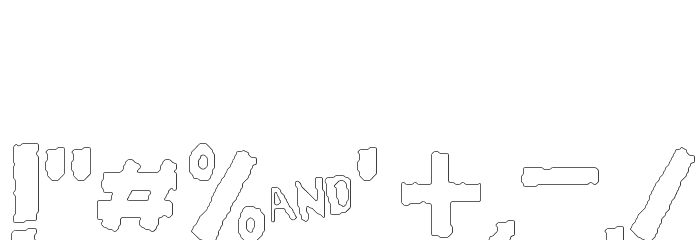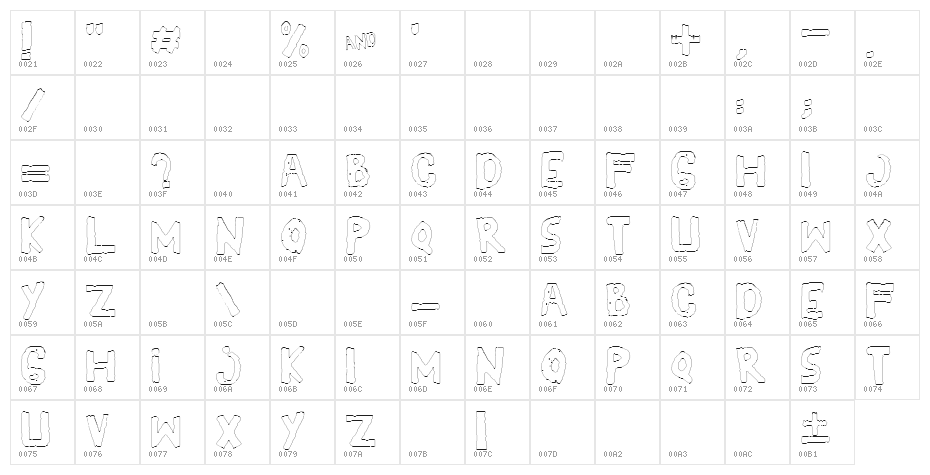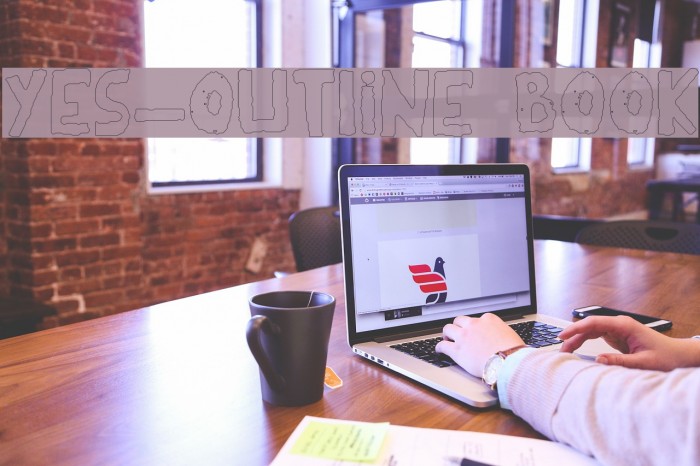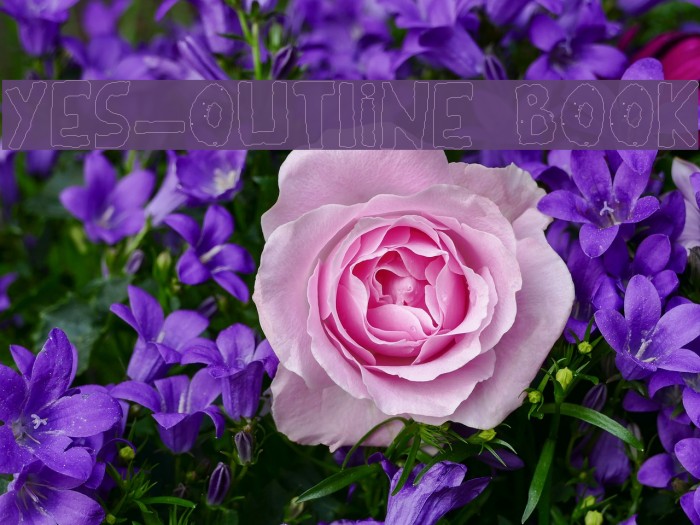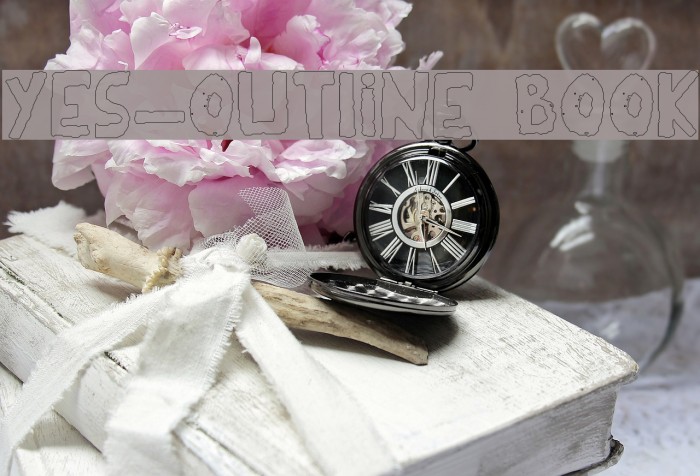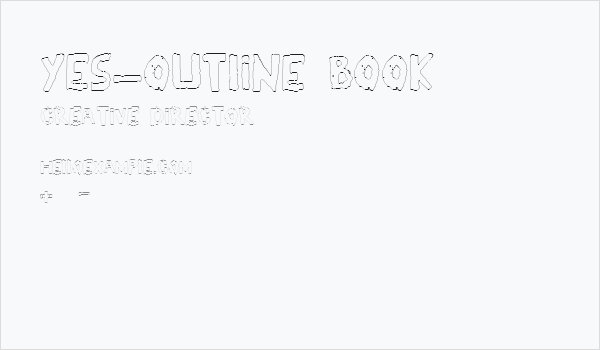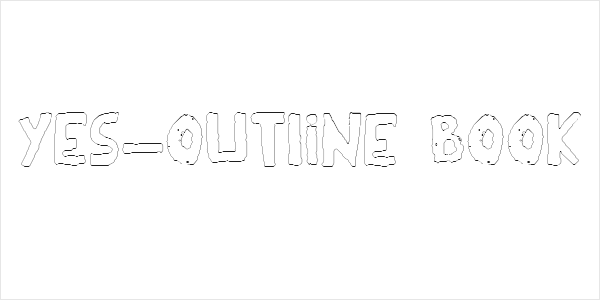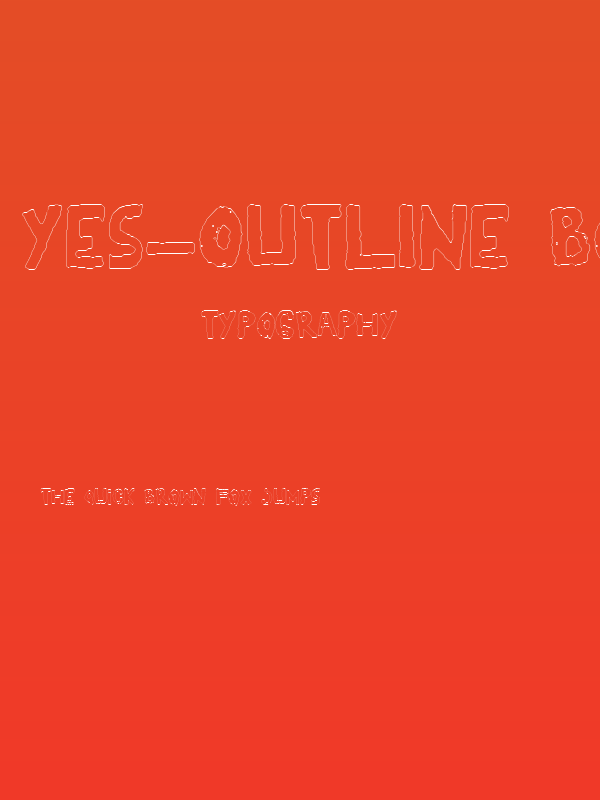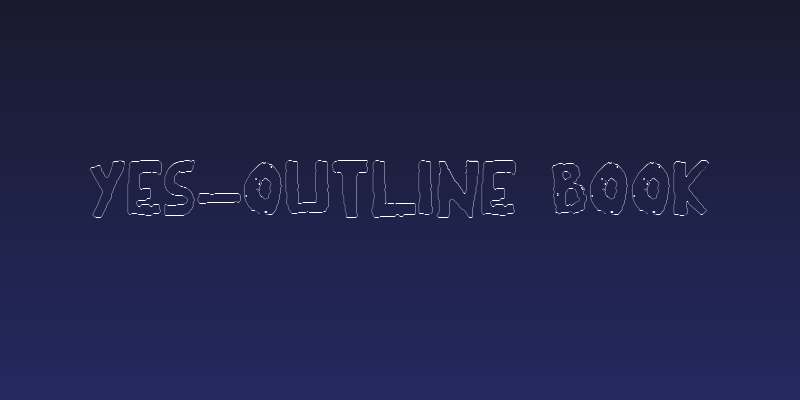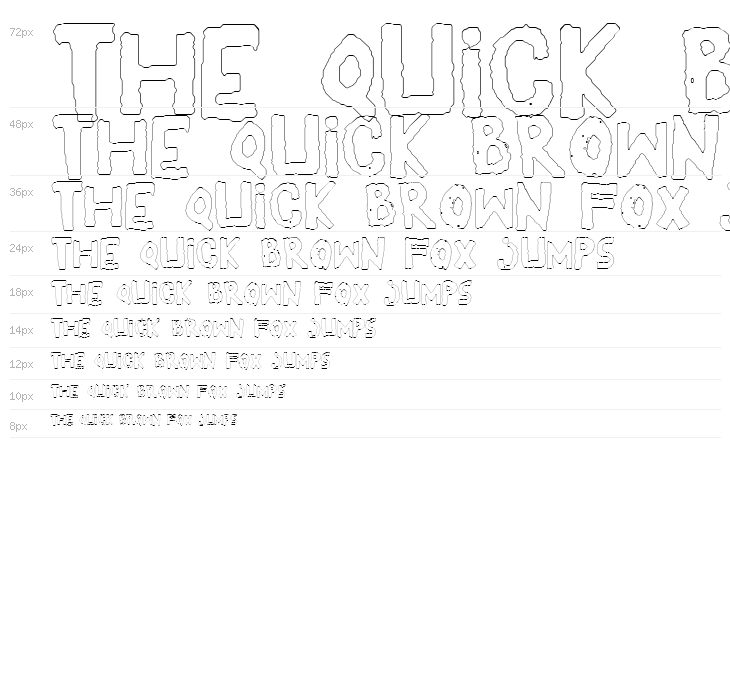
YES_outline Book Font
YES_outline Book Description
This font features a playful and bold outline style, with each character having a hand-drawn, slightly irregular appearance. The uppercase and lowercase letters maintain a consistent width, giving a cohesive look across the alphabet. The numbers and special characters follow the same design principles, ensuring uniformity. The overall aesthetic is casual and approachable, making it suitable for projects that require a fun and informal touch. The outline design adds a layer of depth, making the text stand out without being overly complex.
| Overall Style | Playful, Casual |
| Use Case | Headlines, Posters, Creative projects |
| Proposed Projects | Ideal for children's books, playful branding, posters, and creative projects that require a fun and informal touch. |